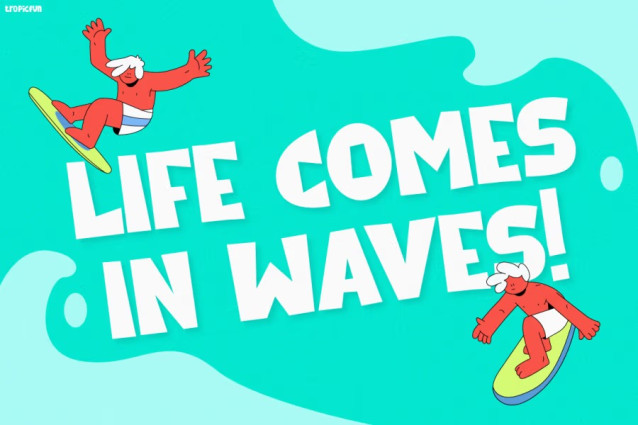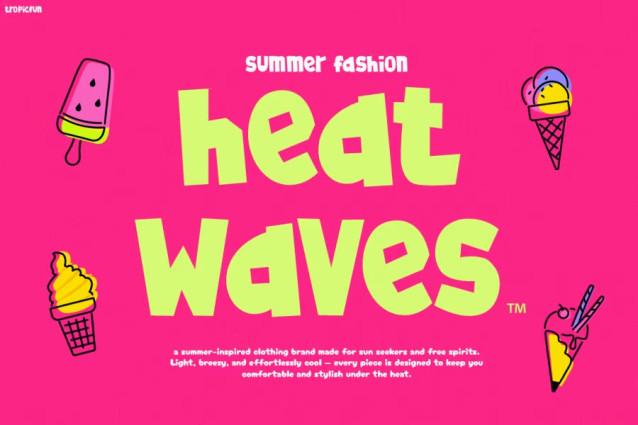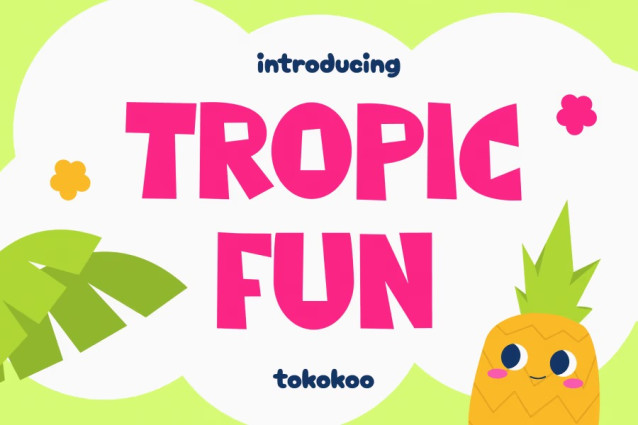
Tropicfun Font
Tropicfun Font bursts with pure happiness and endless charm! This playful typeface captures the carefree joy of summer, blending bold shapes and smooth curves that instantly brighten any design. Moreover, every letter feels alive—bouncy, round, and full of tropical flavor. Inspired by beach days, popsicles, and sunny skies, Tropicfun brings a splash of color and energy to your words. Its unique hand-drawn look gives off a friendly, approachable vibe, while the balanced spacing ensures every message is easy to read and full of personality.
What makes it truly stand out is how it balances fun and functionality. The chunky yet soft letterforms make your text pop with energy, yet remain beautifully legible across posters, packaging, and social media. In addition, its cheerful design captures attention immediately and keeps the viewer engaged. From the vibrant “heat waves” headline to the adorable “fruity popsicle” tubs, every use of Tropicfun feels refreshing and full of life. Therefore, it’s not just a font—it’s a feeling, a smile, and a joyful burst of creativity that transforms words into a tropical celebration.